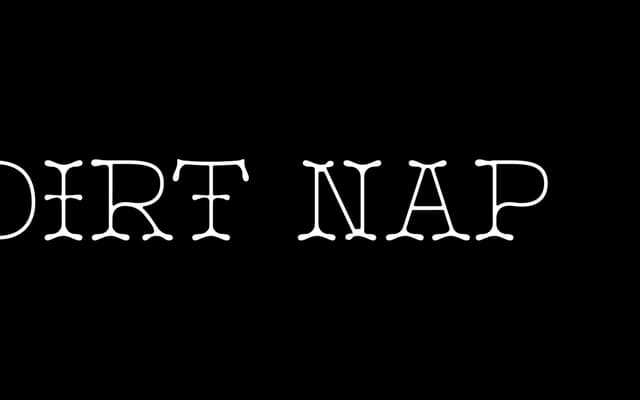
An all-caps display face drawing on western and medieval references, with ornate detailing suited to logo and identity work.
Dirt Nap blends western, medieval and vaguely magical visual cues into an all-caps display typeface with ornate detailing. The foundry positions it as highly customisable and well-suited to logo and identity projects where personality and distinctiveness are priorities. Its decorative character makes it a strong choice for short-form settings rather than extended text.
An all-caps decorative display face with western and medieval influences and ornate detailing, placing it firmly in the display category with an ornate subcategory.